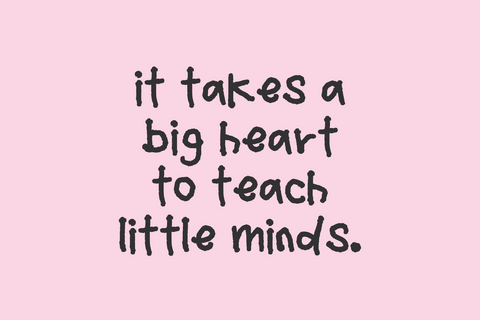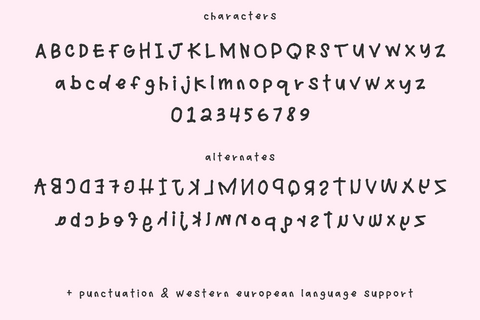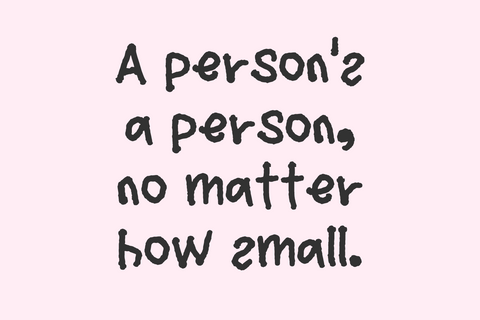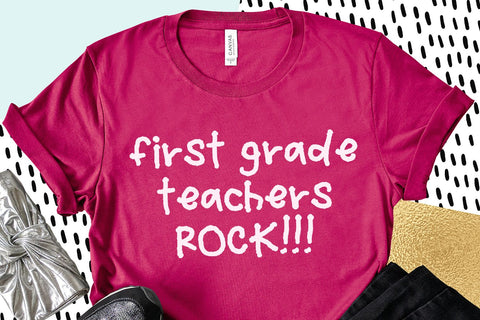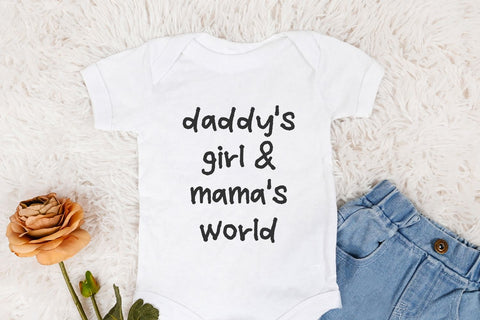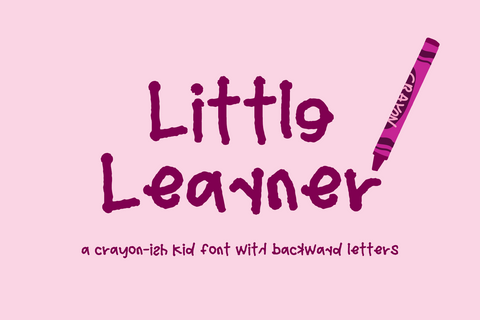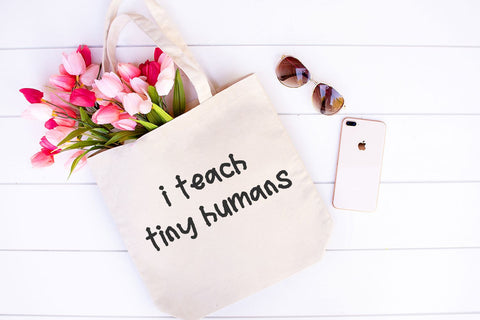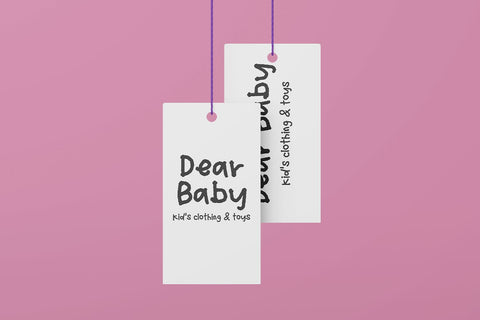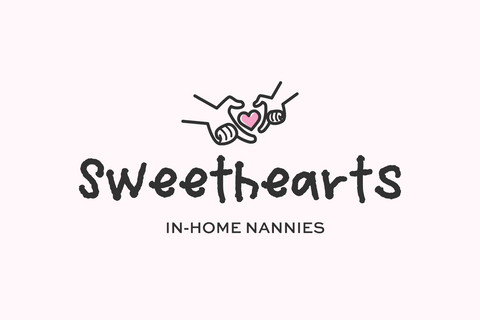
Little Learner Handwritten Font
Little Learner is a handwritten sans font with alternates. Little Learner is a textured font, a bit like crayon or a marker that bleeds. Each letter has an alternate character that is written backward, just like how a child might do as they’re learning letter formation and writing. Use the backward letters as much or as little as you like - I personally prefer sparingly to maintain a fully legible look while adding a bit of young whimsy to your project.
Little Learner includes:
- full upper + lowercase characters
- numbers + punctuation
- 54 alternate characters - A-Z, a-z plus Þ and ẞ
- Western European language support - English, French, Spanish, Portuguese (Brazil), Portuguese (Portugal), Italian, German (Germany), German (Austria), Dutch, Danish, Swedish, Norwegian (Bokmål and Nynorsk), Finnish, Icelandic, Irish, Welsh